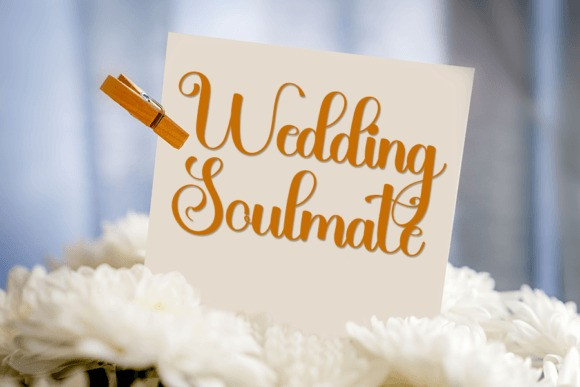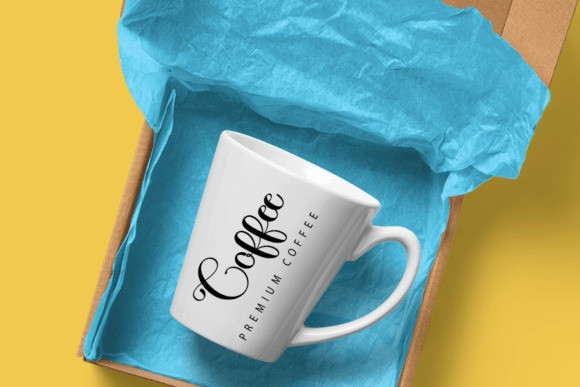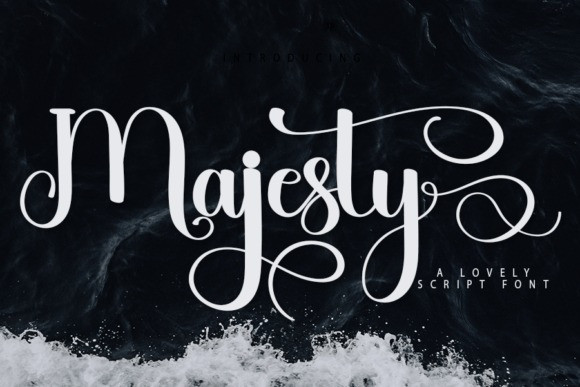
Majesty Font
Majesty Font is a beautiful and refined handwritten font. Classy and modern, it is perfect for logos, branding, invitations, stationery, wedding designs, social media posts, and much more!